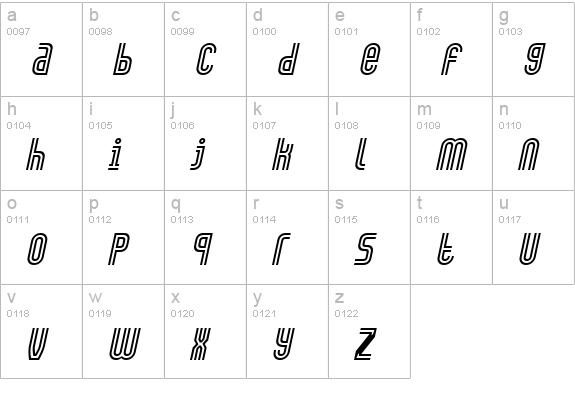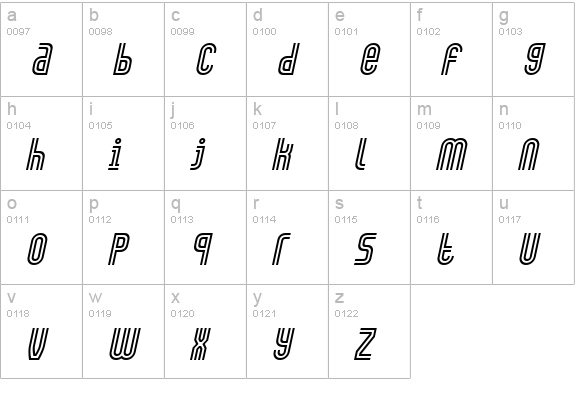
Arch Italic Font Details
Arch Italic is a distinctive, italic variant in the Arch typeface family \xE2\x80\x94 well suited to design and typography projects.
Arch Italic font is a stylish and modern typeface that exudes elegance and sophistication. With its sleek and flowing lines, this font is perfect for adding a touch of class to any design project. Whether you are creating invitations, logos, or branding materials, Arch Italic will surely make a lasting impression. The italicized version of Arch font adds a dynamic and energetic feel to your text, making it stand out and draw attention. Its unique design allows for easy readability while still maintaining a sense of creativity and flair. This versatile font is available for free download at FontsMarket.com, making it accessible to everyone looking to enhance their designs with a touch of sophistication. Don't miss out on the opportunity to elevate your projects with the sleek and stylish Arch Italic font today!